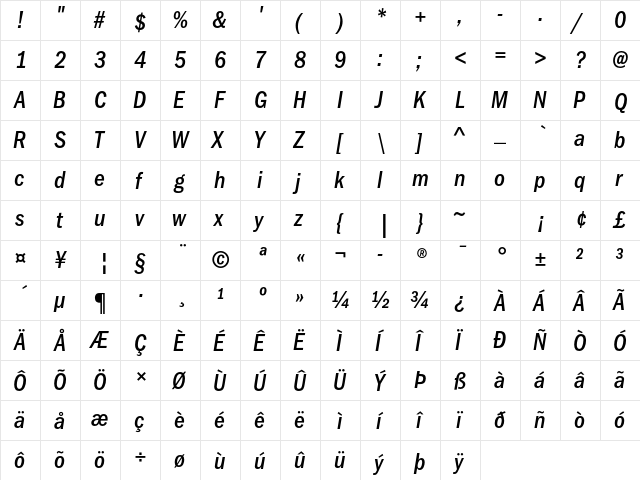
ITC Franklin Gothic Std Medium Condensed Italic Font Preview
| Designer | Vic Caruso |
Design Context for ITC Franklin Gothic Std Typeface
ITC Franklin Gothic Std has the quiet confidence of well-executed sans-serif typography: versatile, unobtrusive, and dependable at any size. The slanted form adds forward momentum and visual energy. Its narrow stance lets it pack a punch even in space-constrained designs.
Font Pairing: Works well alongside a characterful serif or display font that can carry the expressive load while ITC Franklin Gothic Std handles the functional copy.
Pro Tip: Try ITC Franklin Gothic Std in all-caps with moderate tracking for navigation and label copy — it performs well in systematic UI contexts.